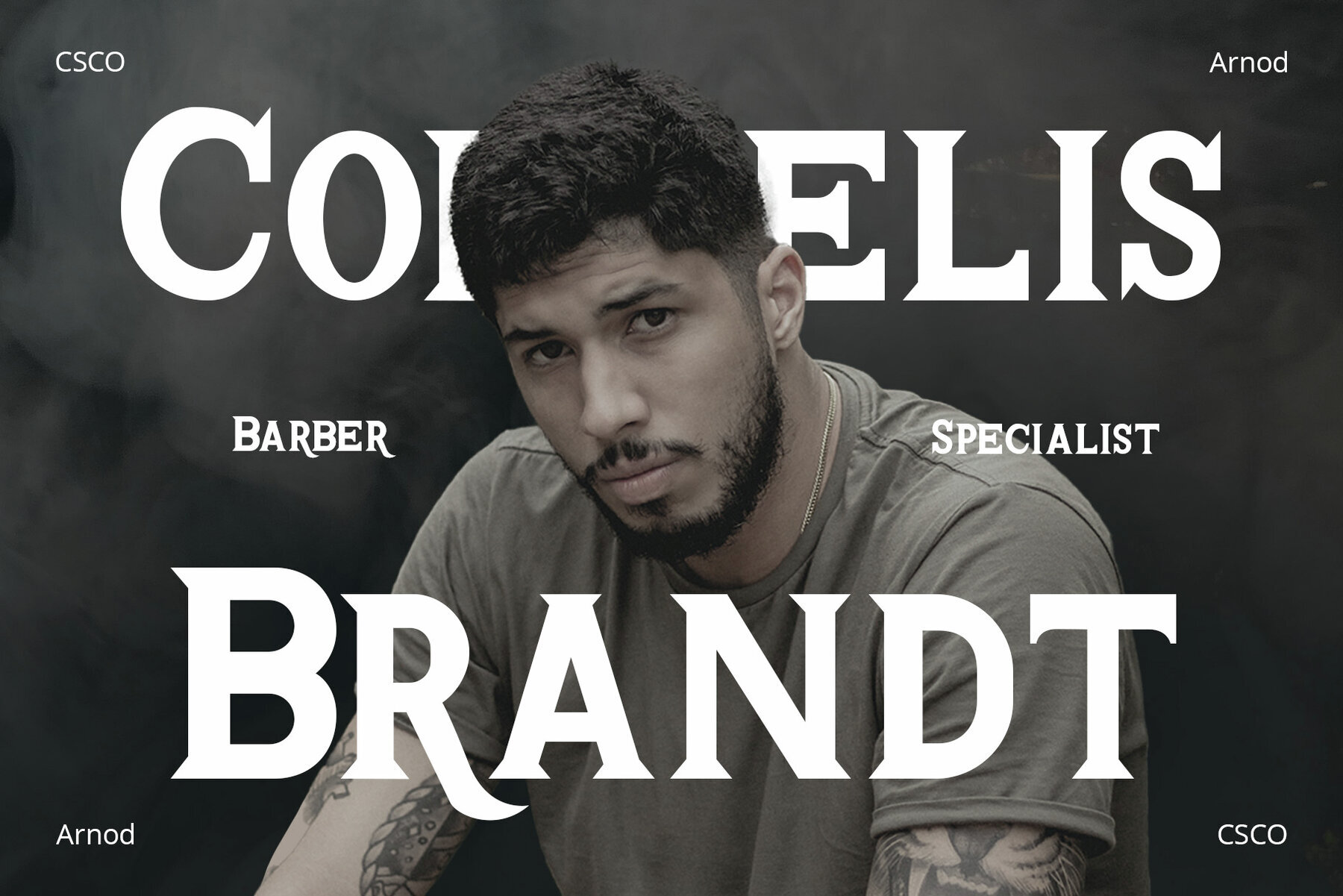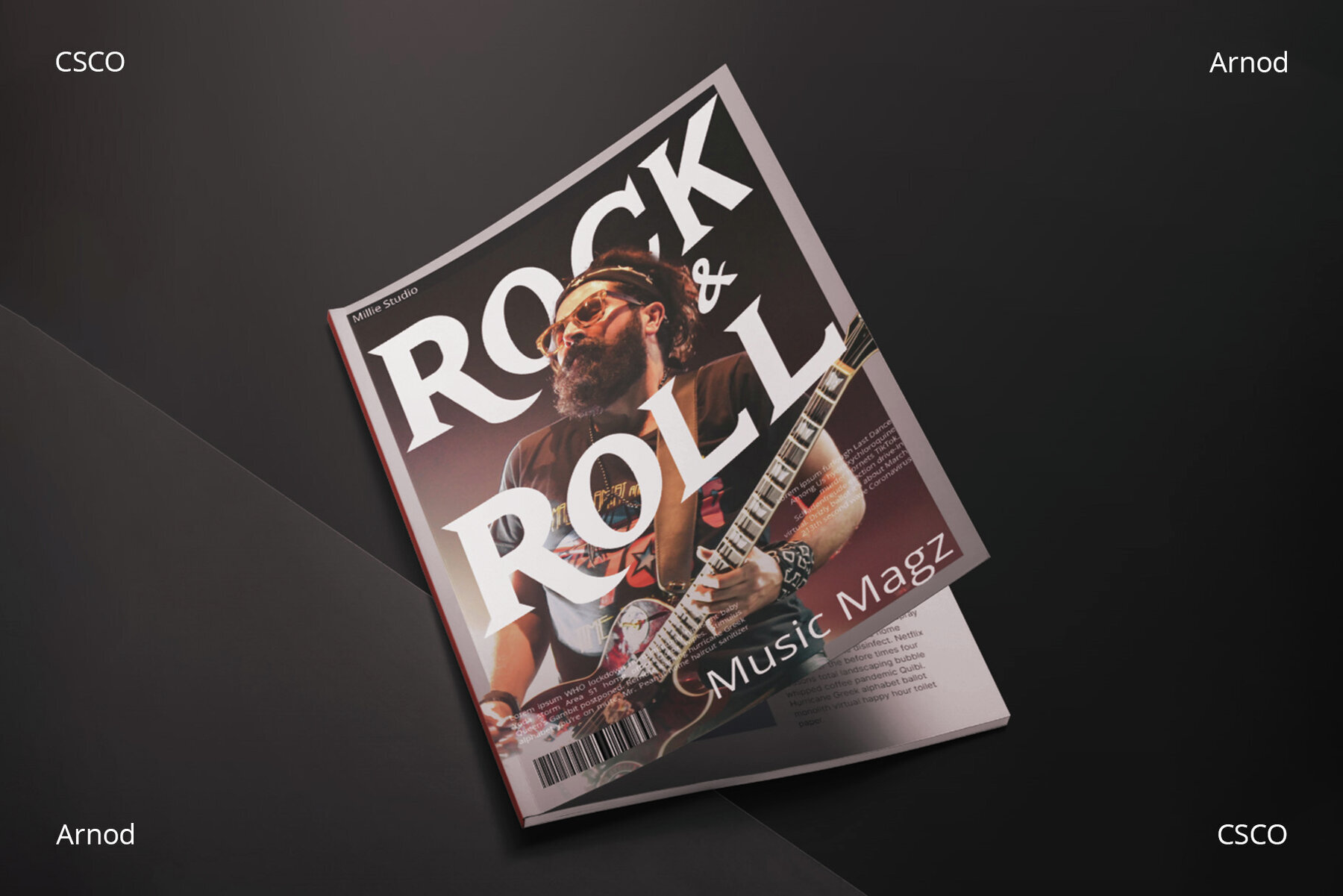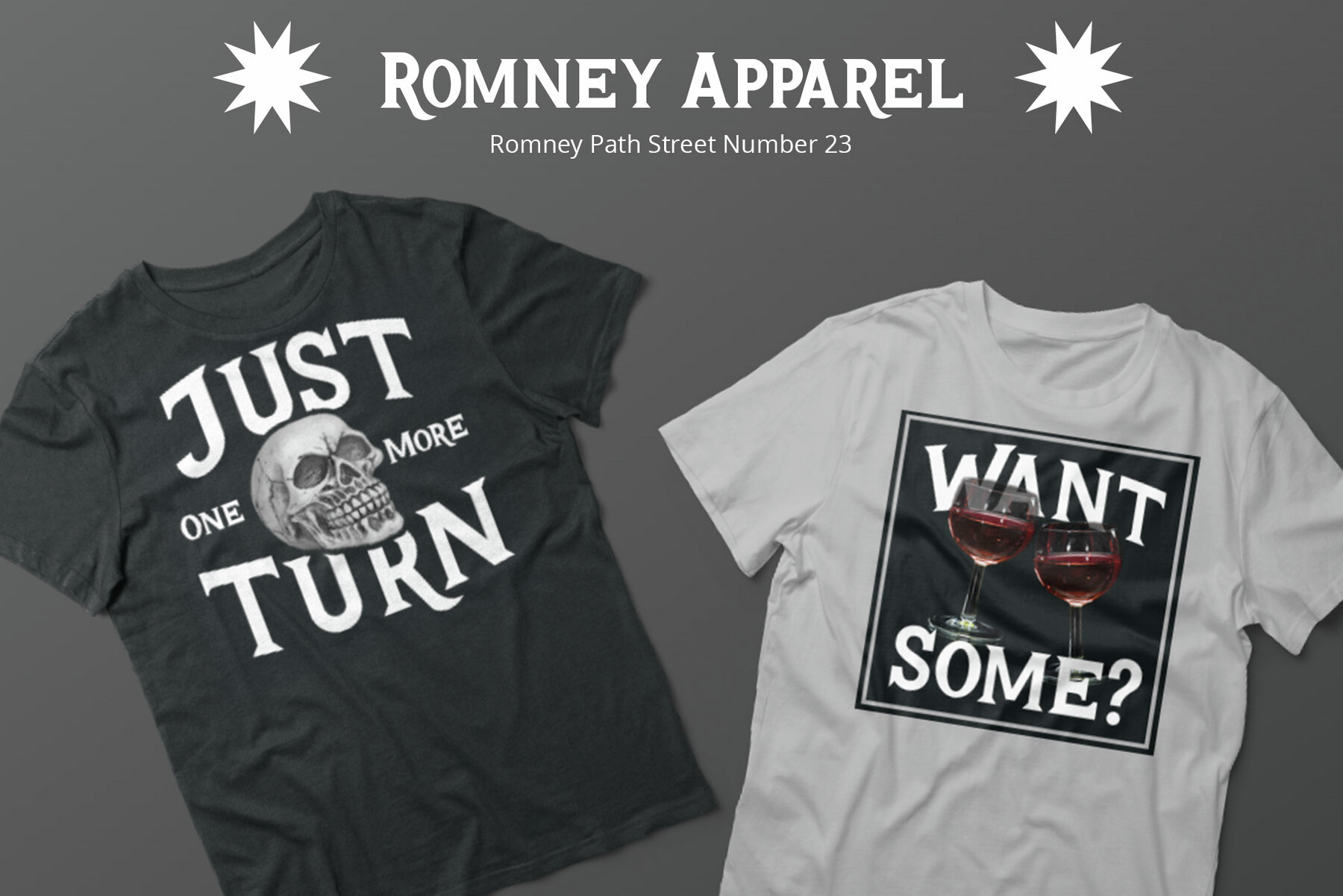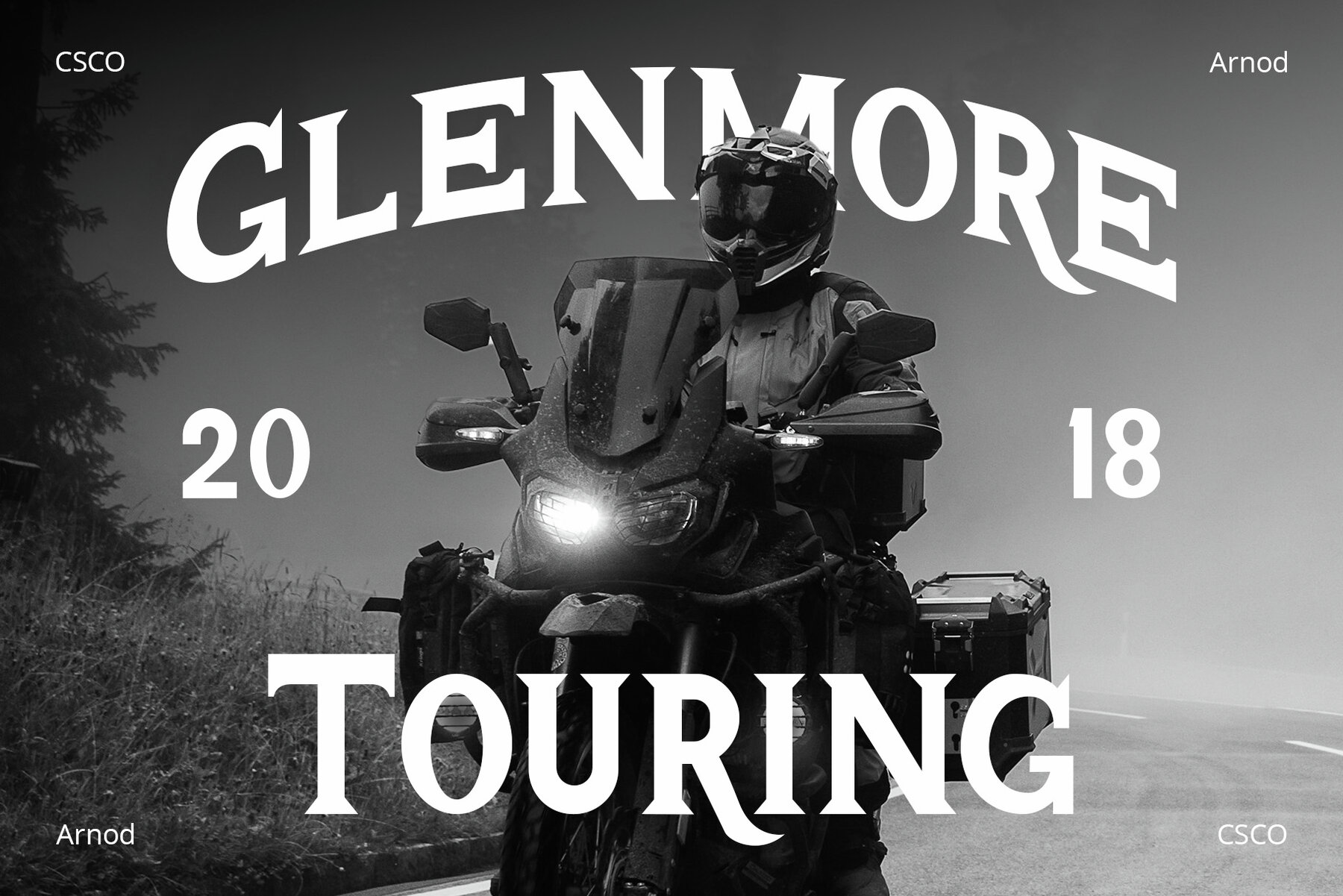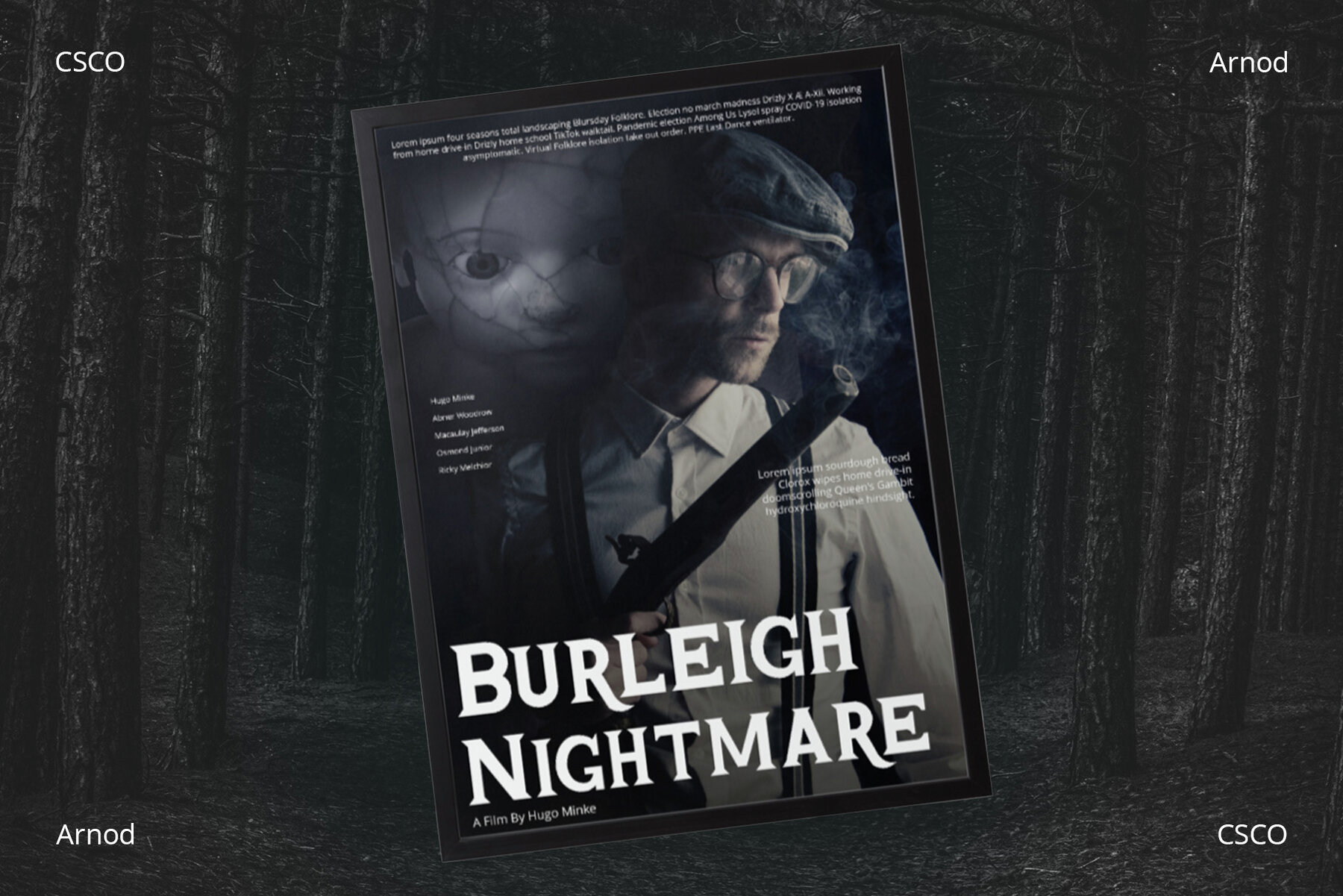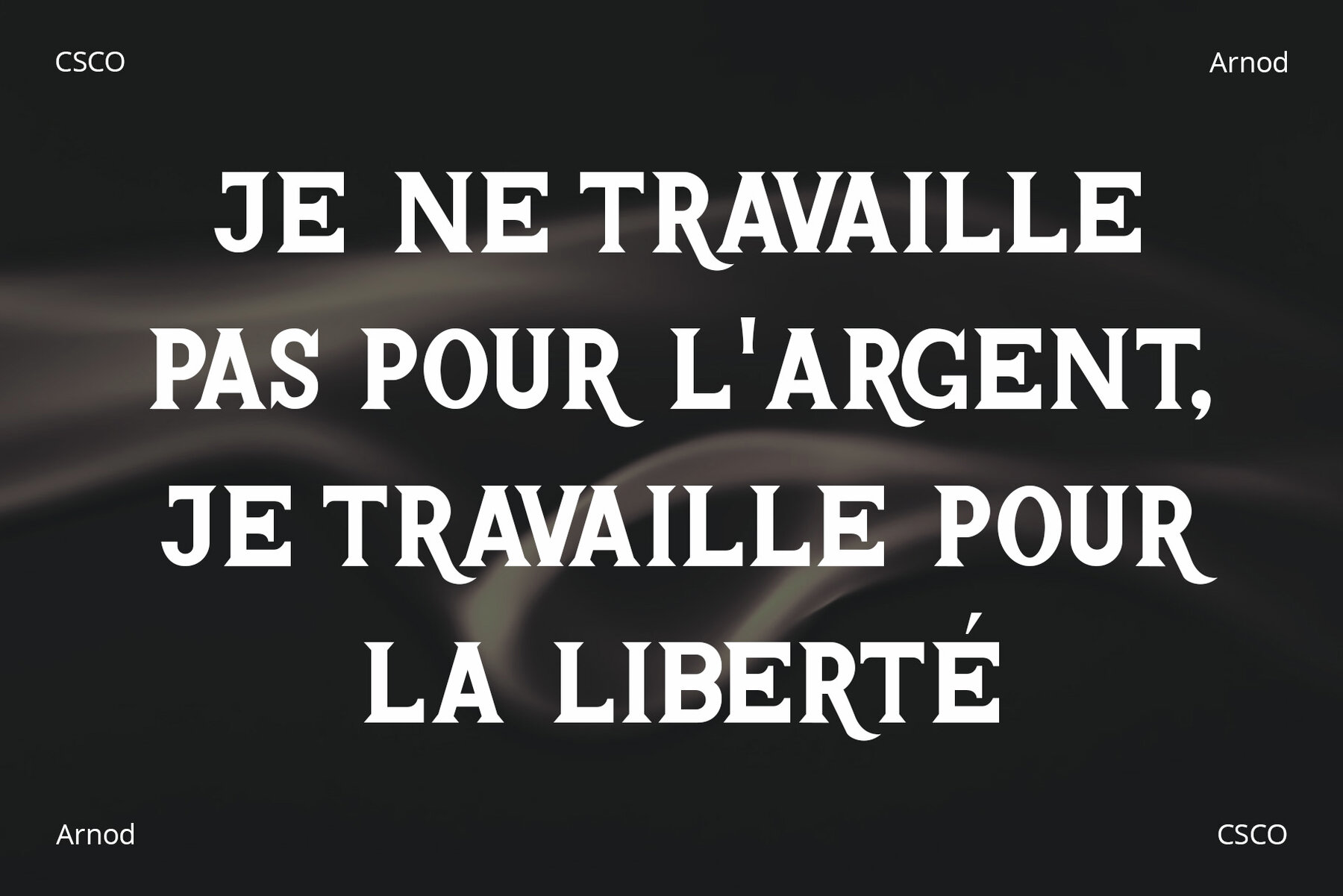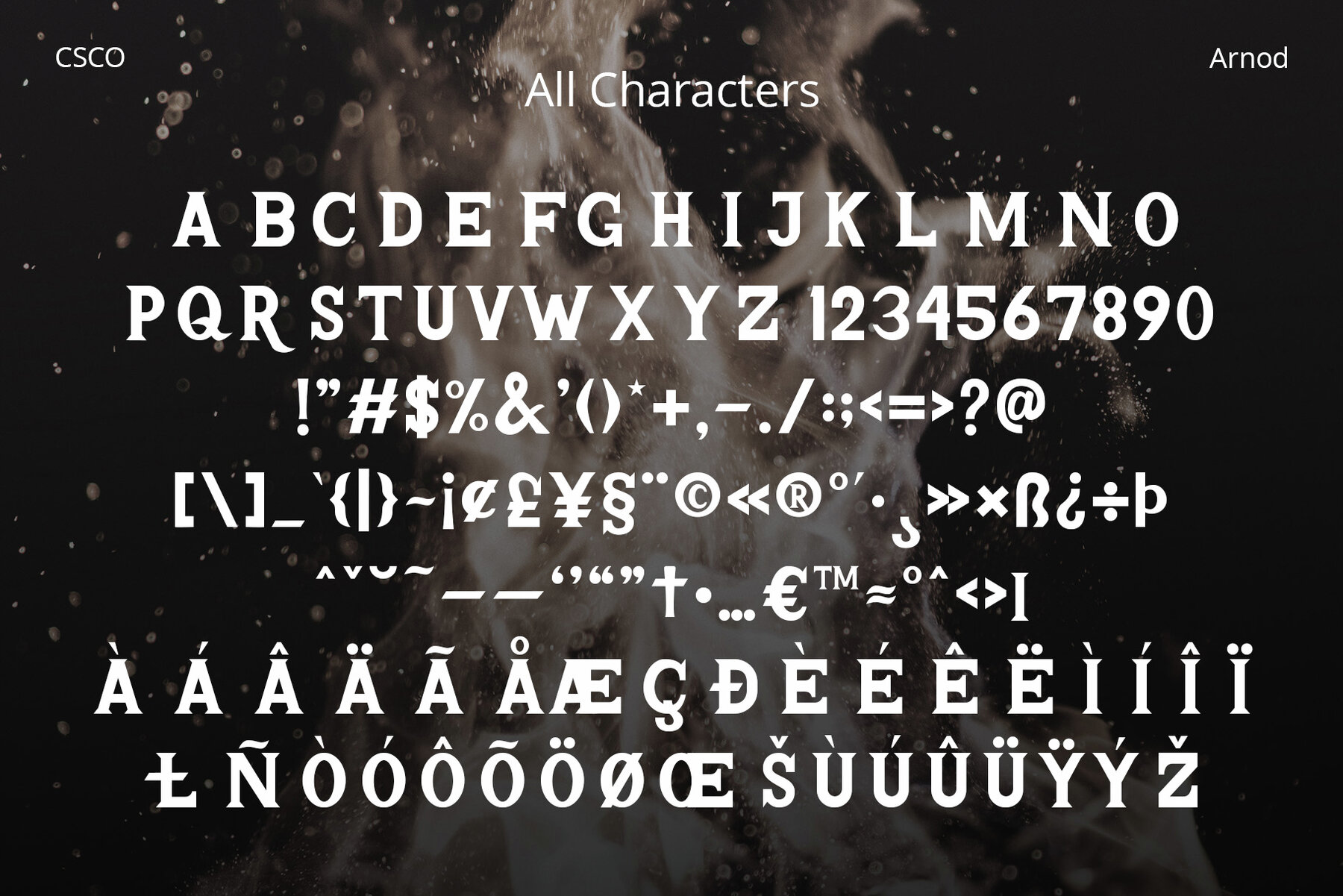
Arnod Font
Arnod Regular
Explore the powerful aesthetics of “Arnod,” a serif typeface that exudes a masculine aura through bold strokes and robust forms. Arnod doesn't just communicate; it declares, ensuring that every design resonates with authority and strength. Arnod skillfully navigates the realms of industrial design, aligning effortlessly with the aesthetics of strength and precision. Its mechanical elegance and structured forms allow designs to embody an authentically industrial spirit.Arnod: A Bold Serif Typeface of Strength and Elegance
Industrial Elegance